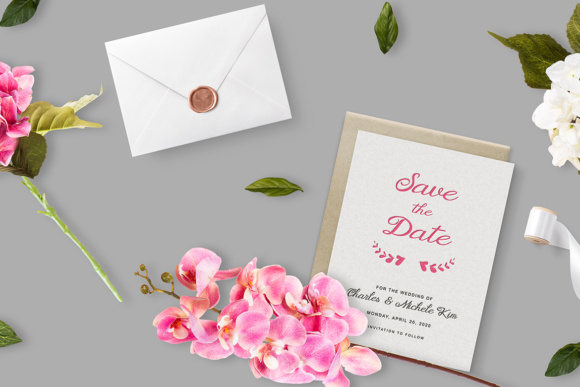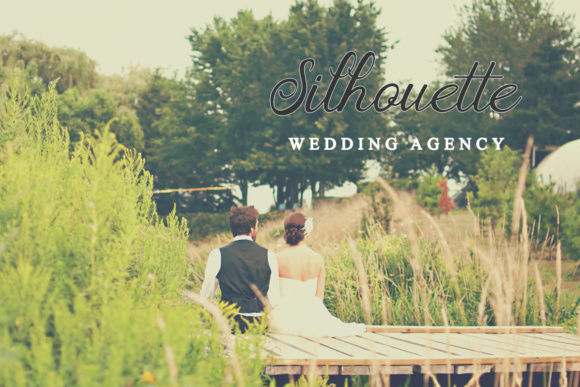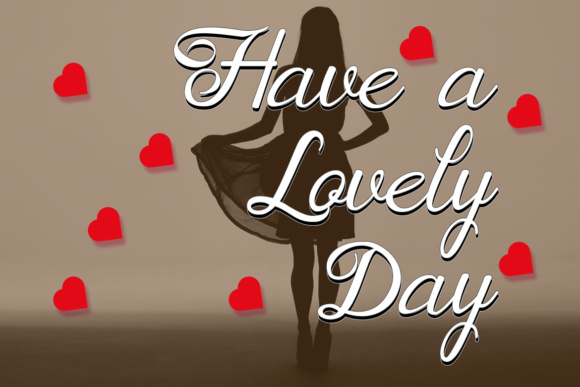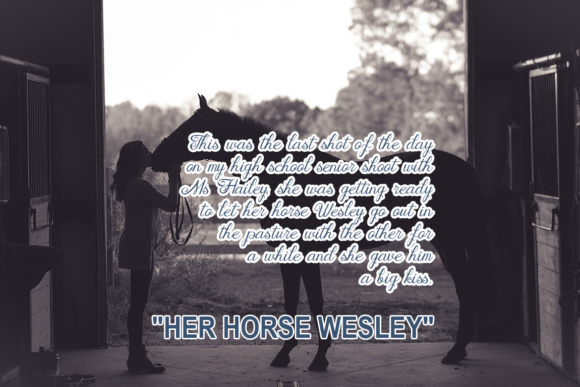
Houston Font
About Houston Font
The Houston is a modern handwritten font. Its beautiful calligraphy gives it an elegant feel.
This trendy brush font allows you to create awesome designs in an instant.